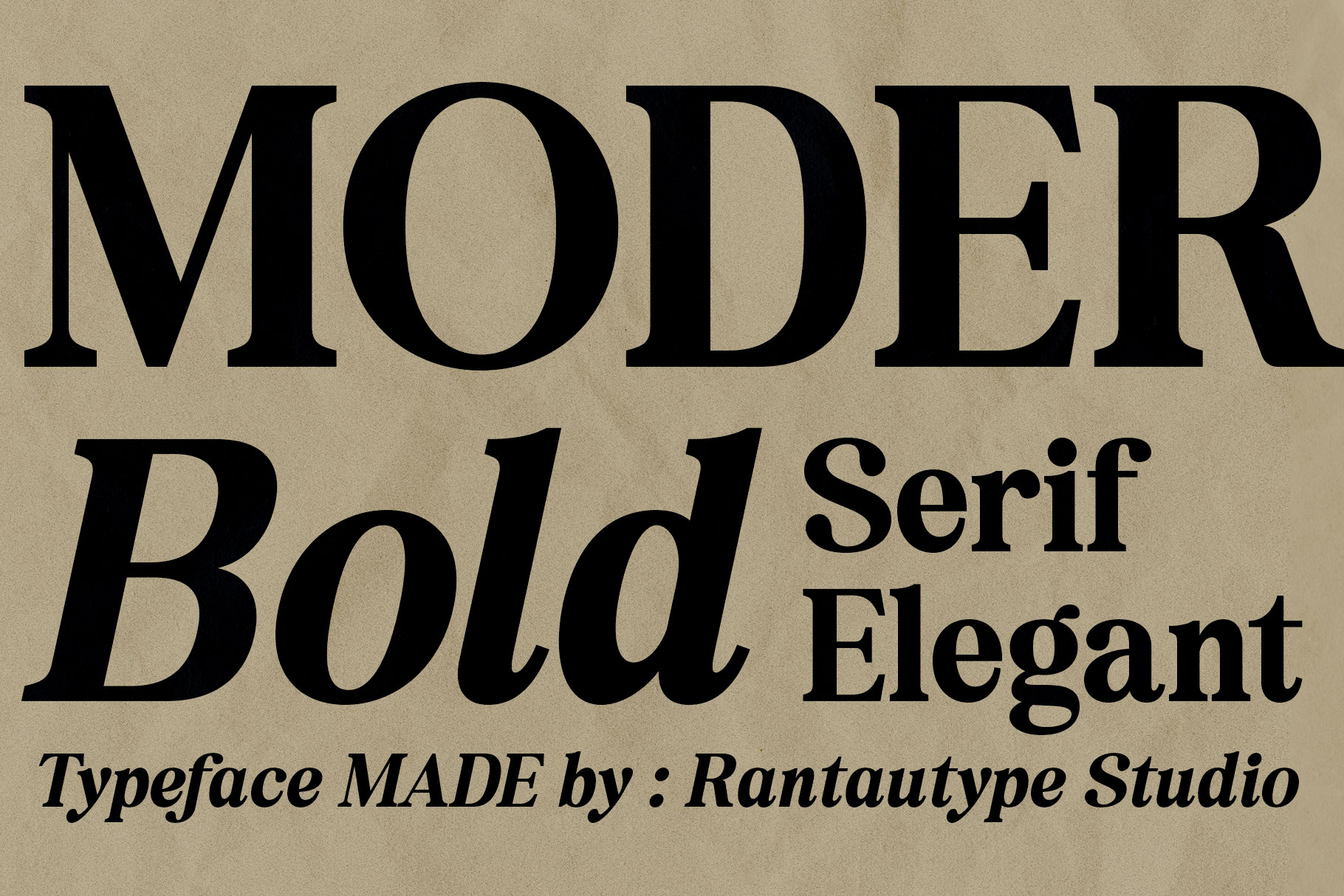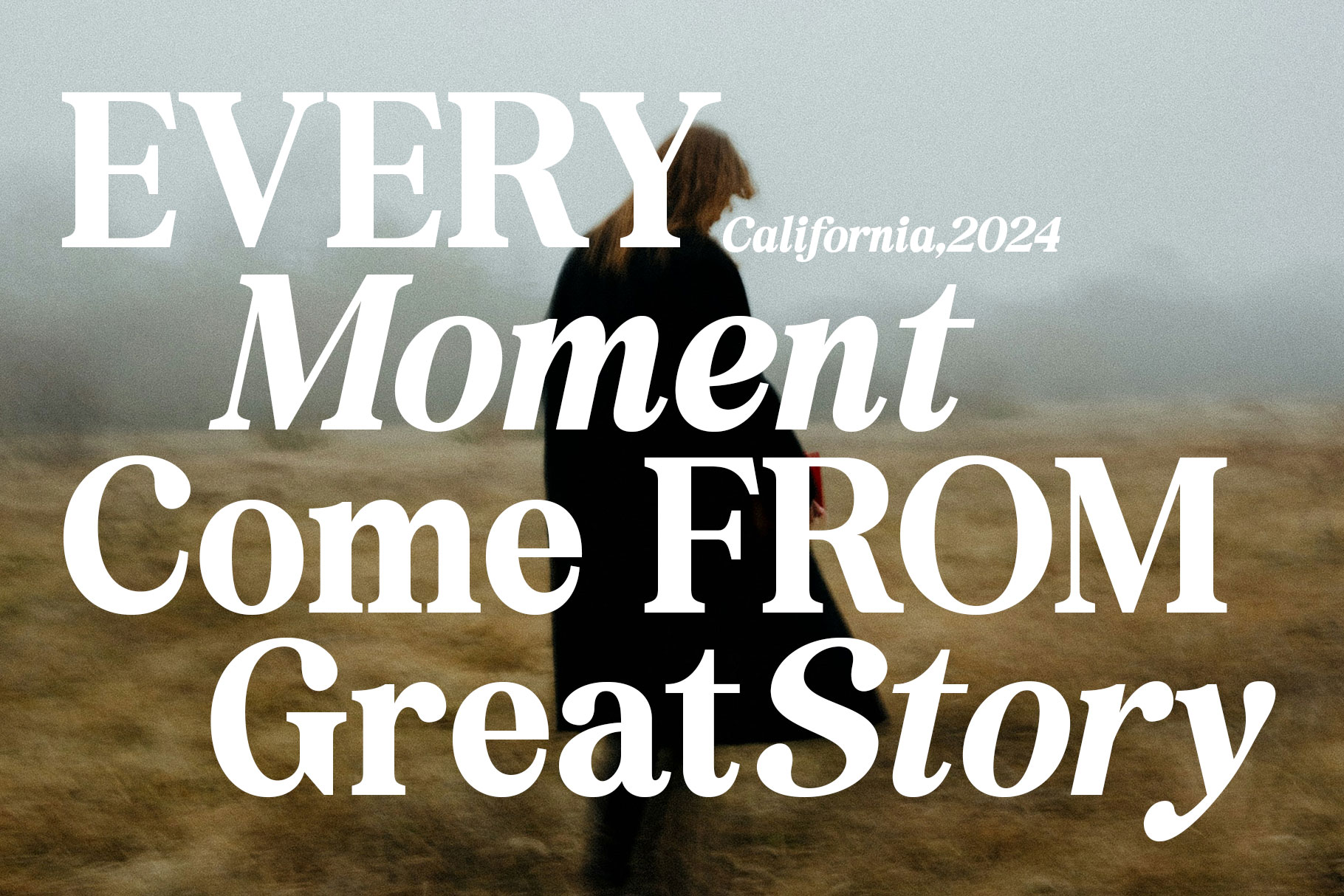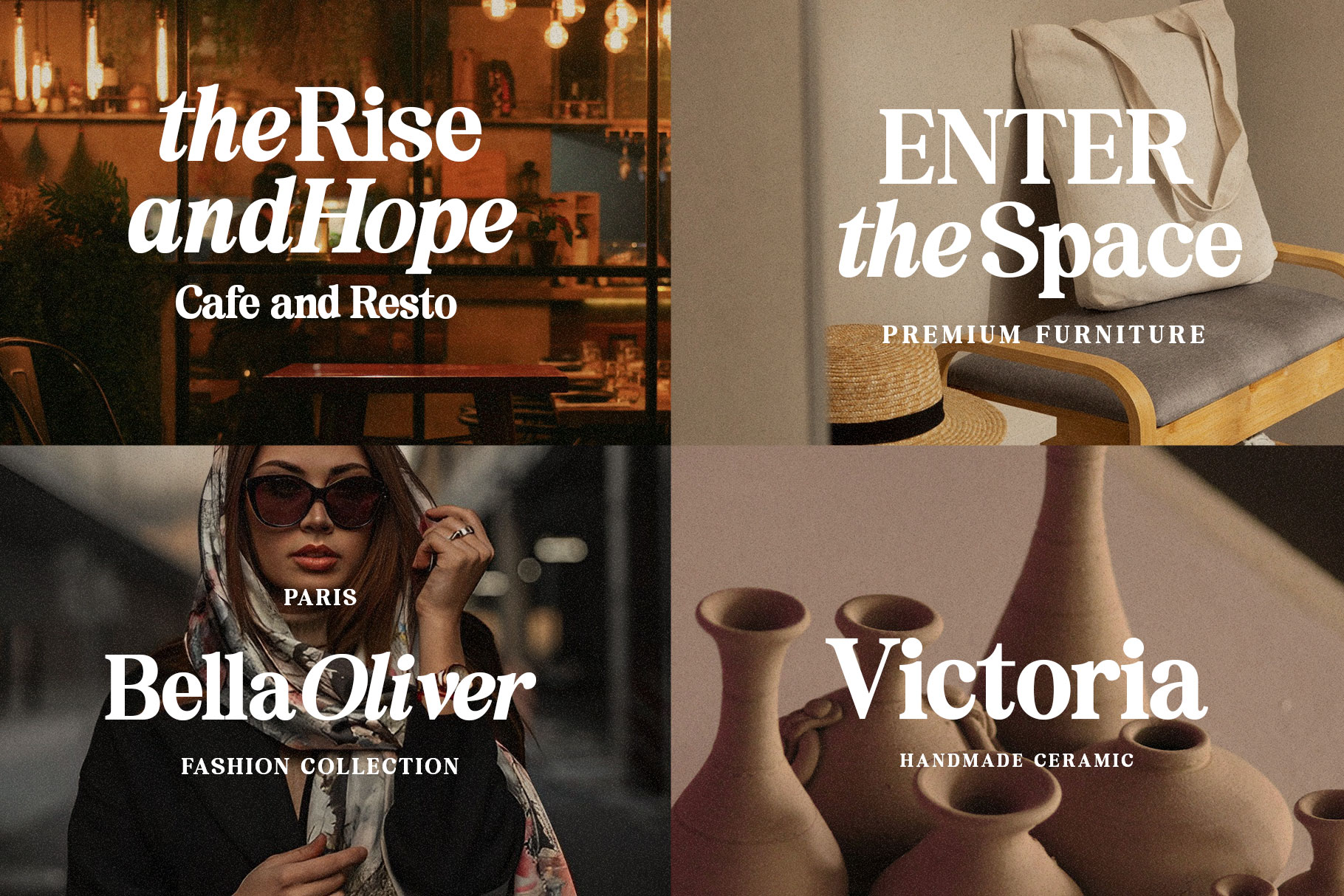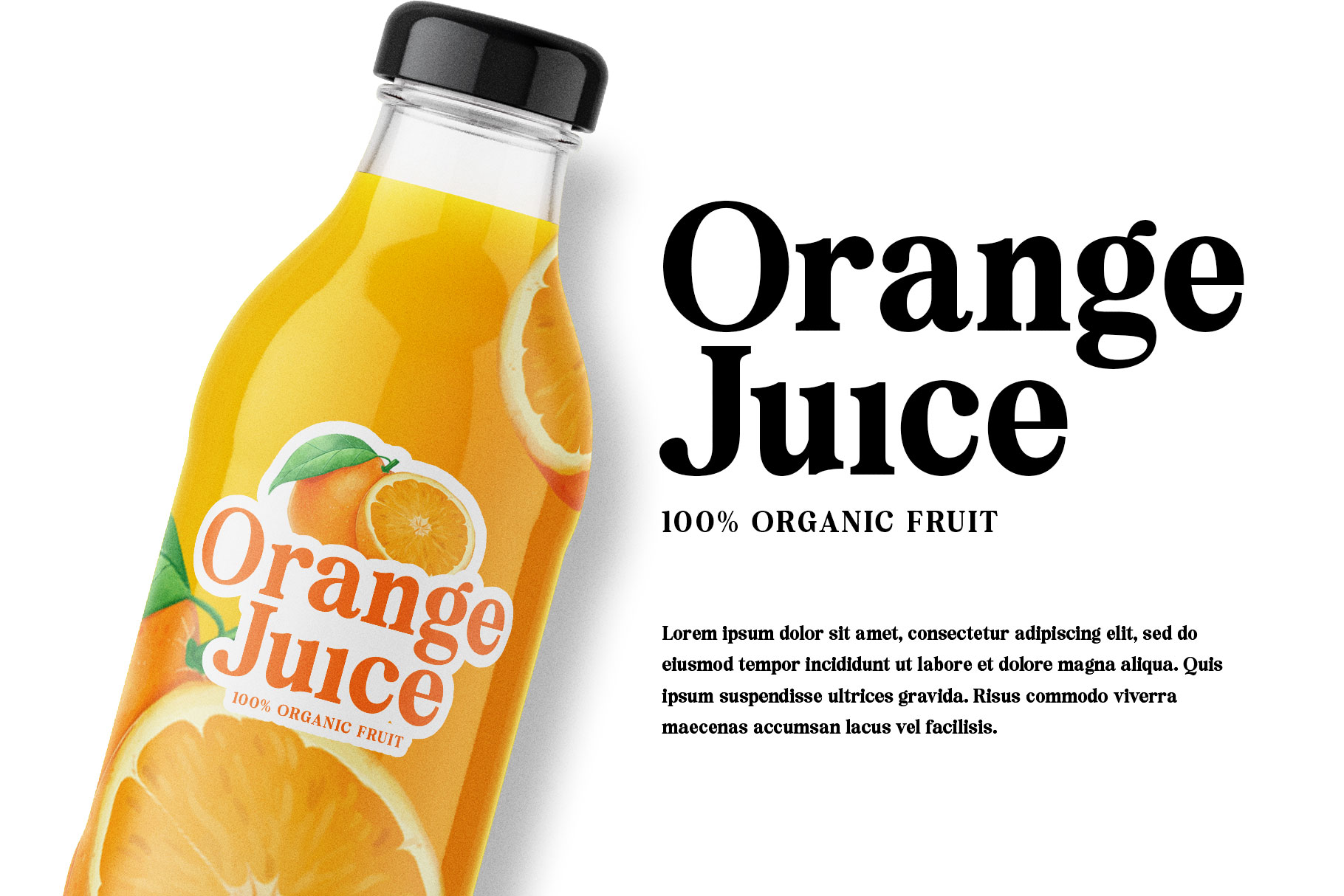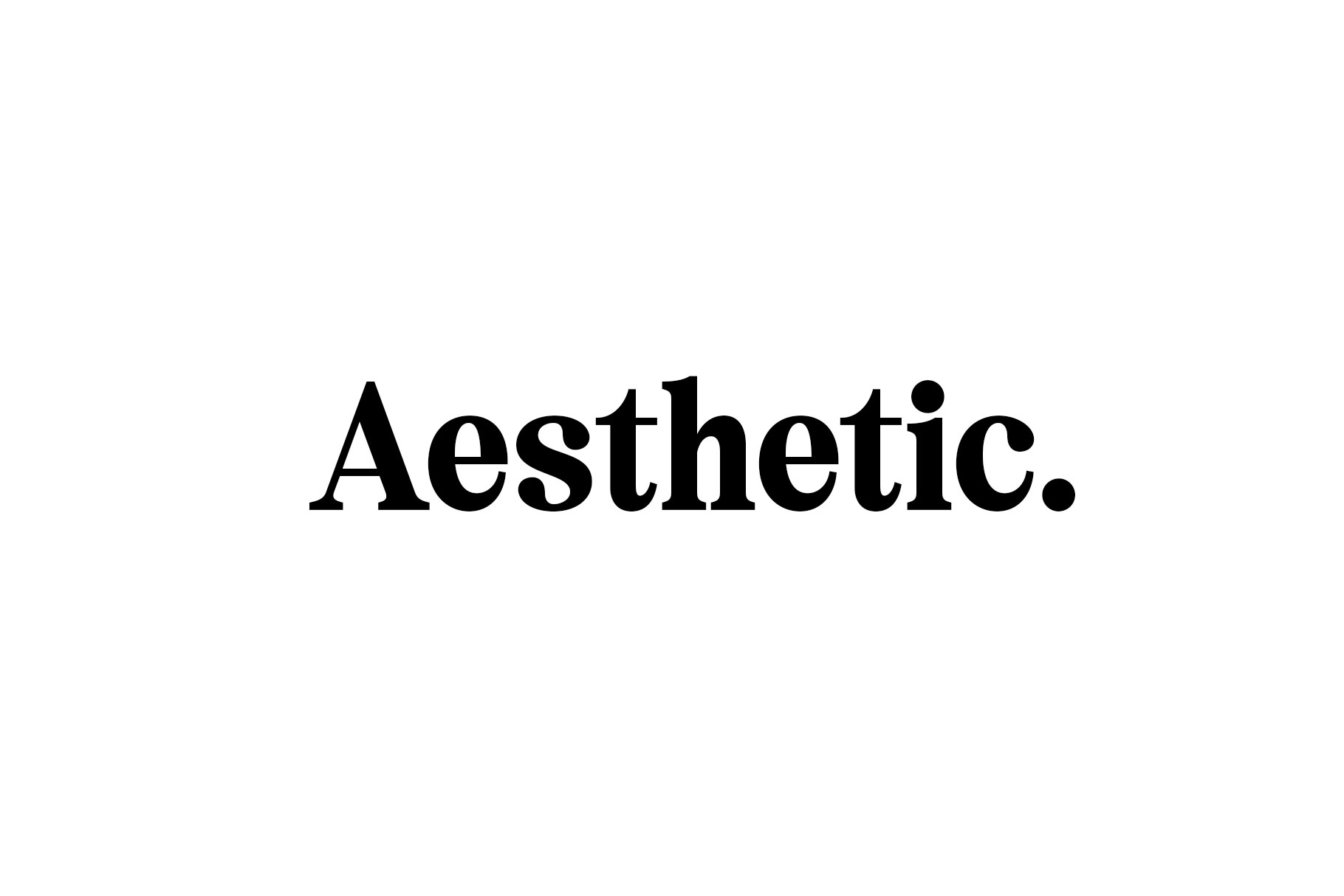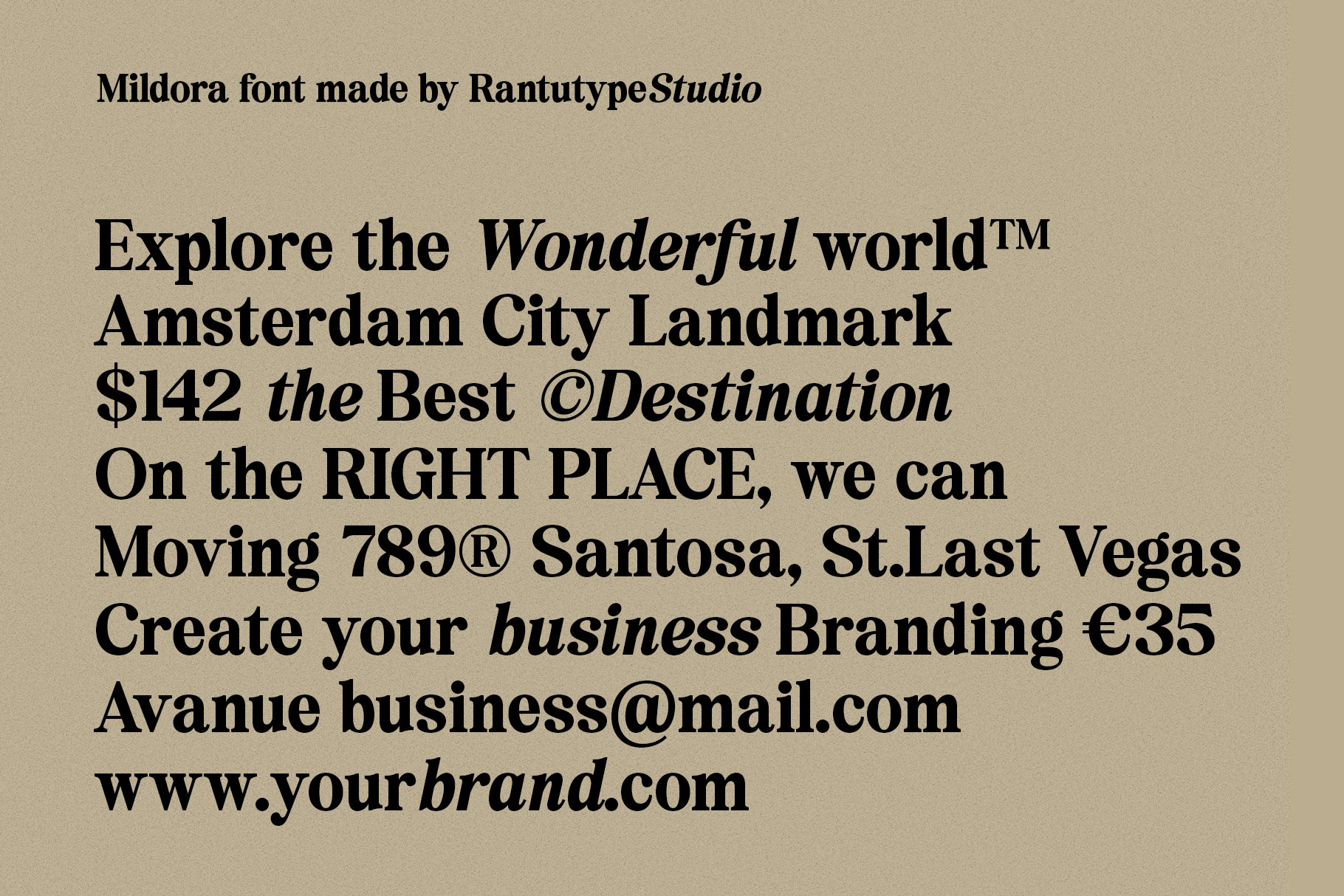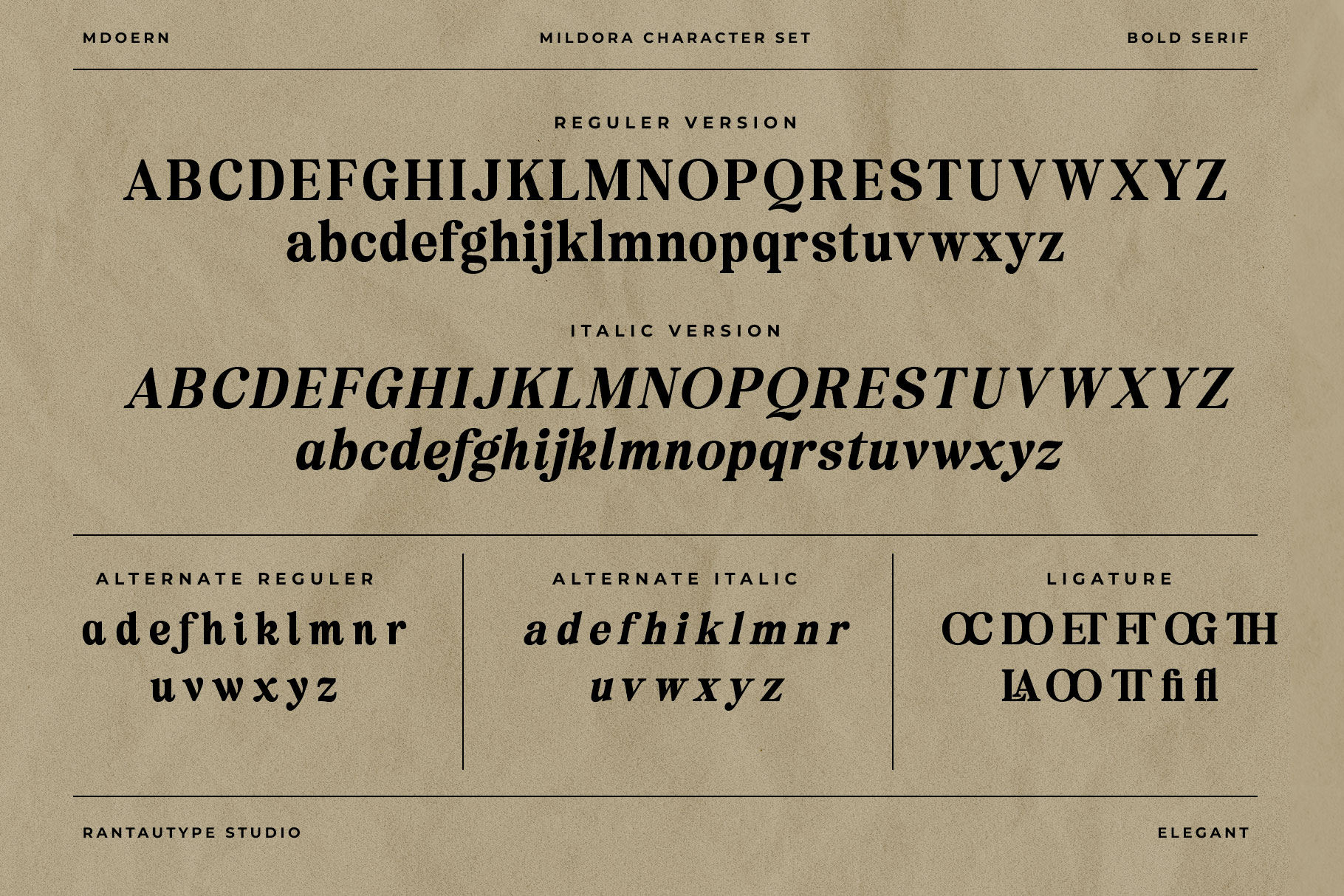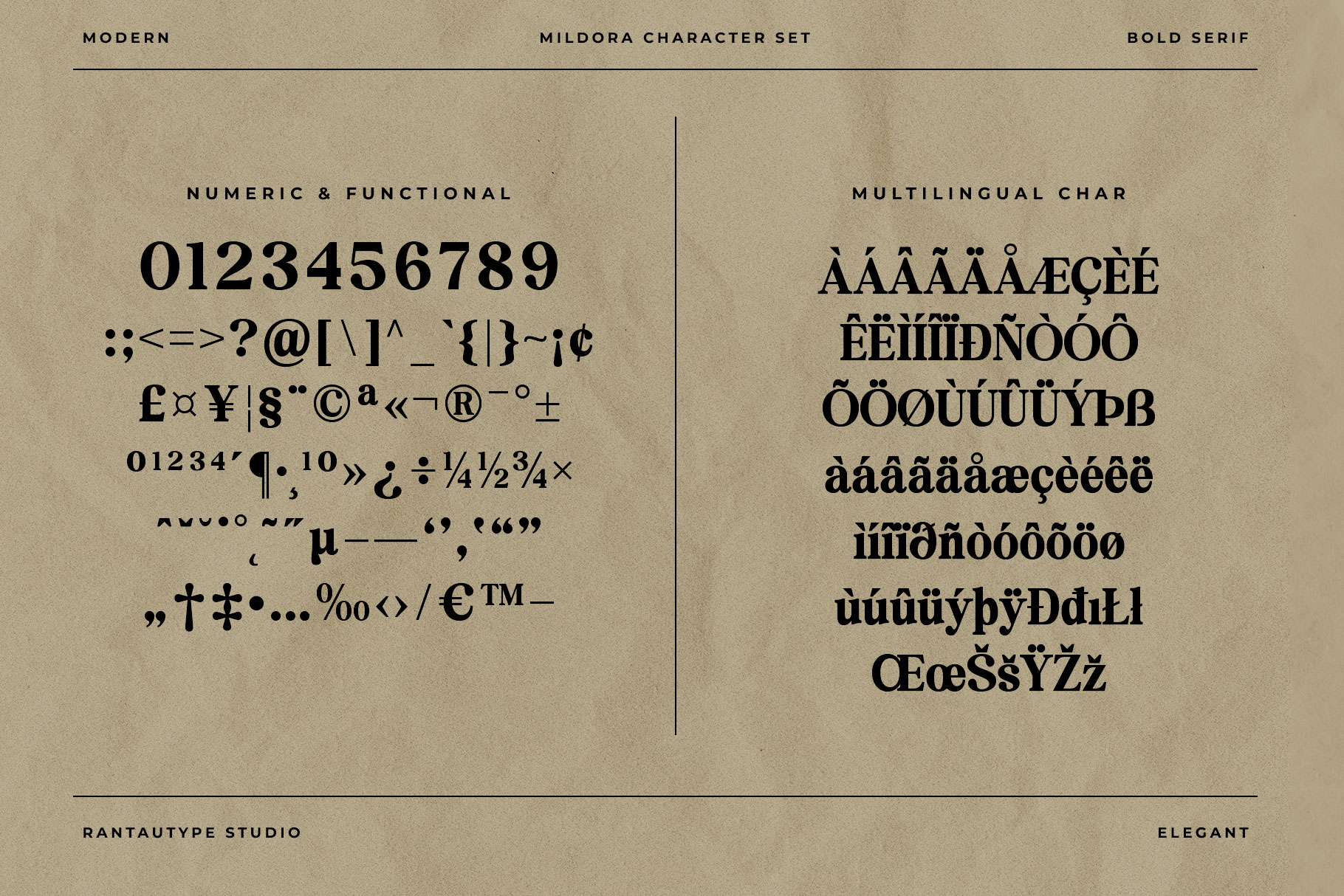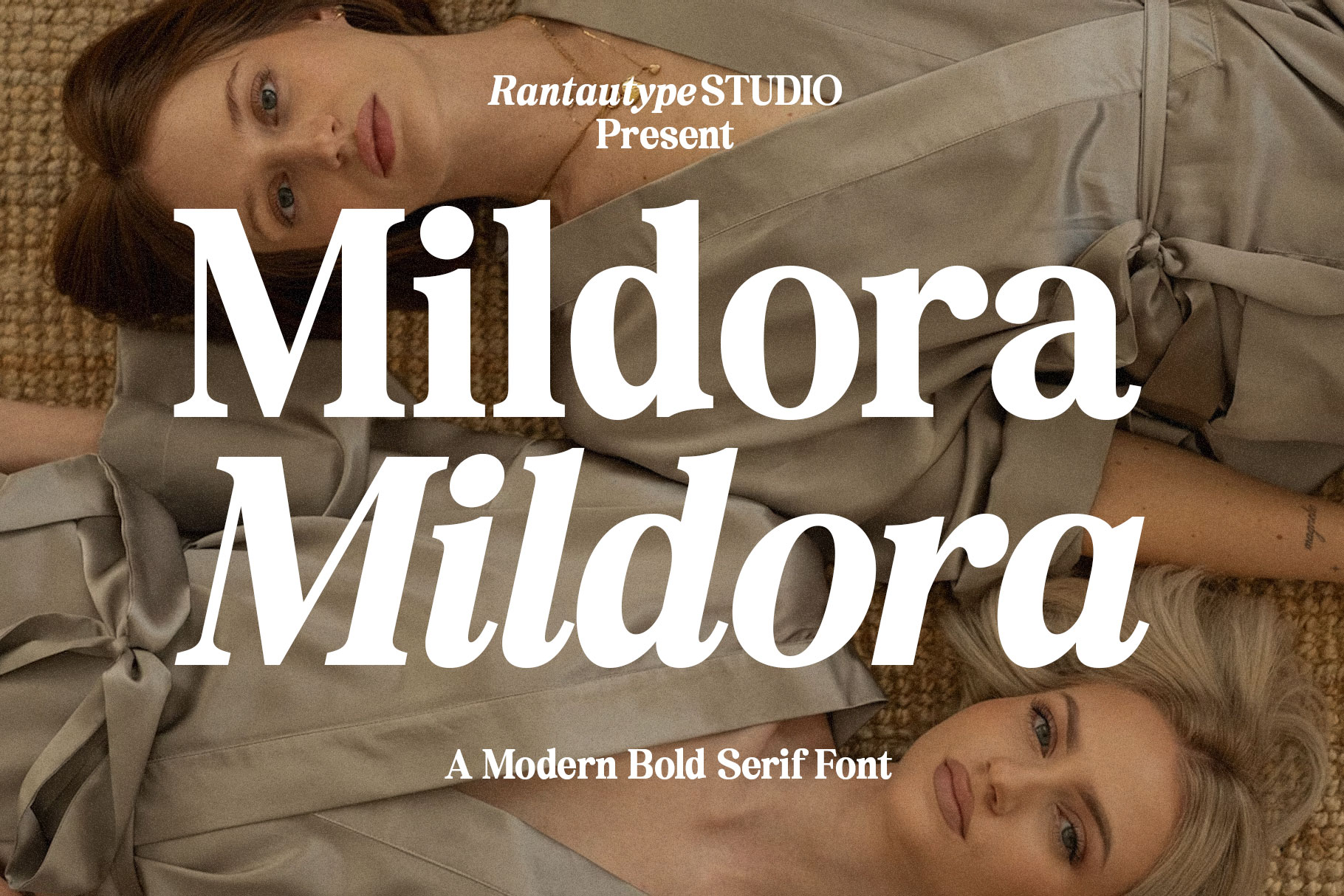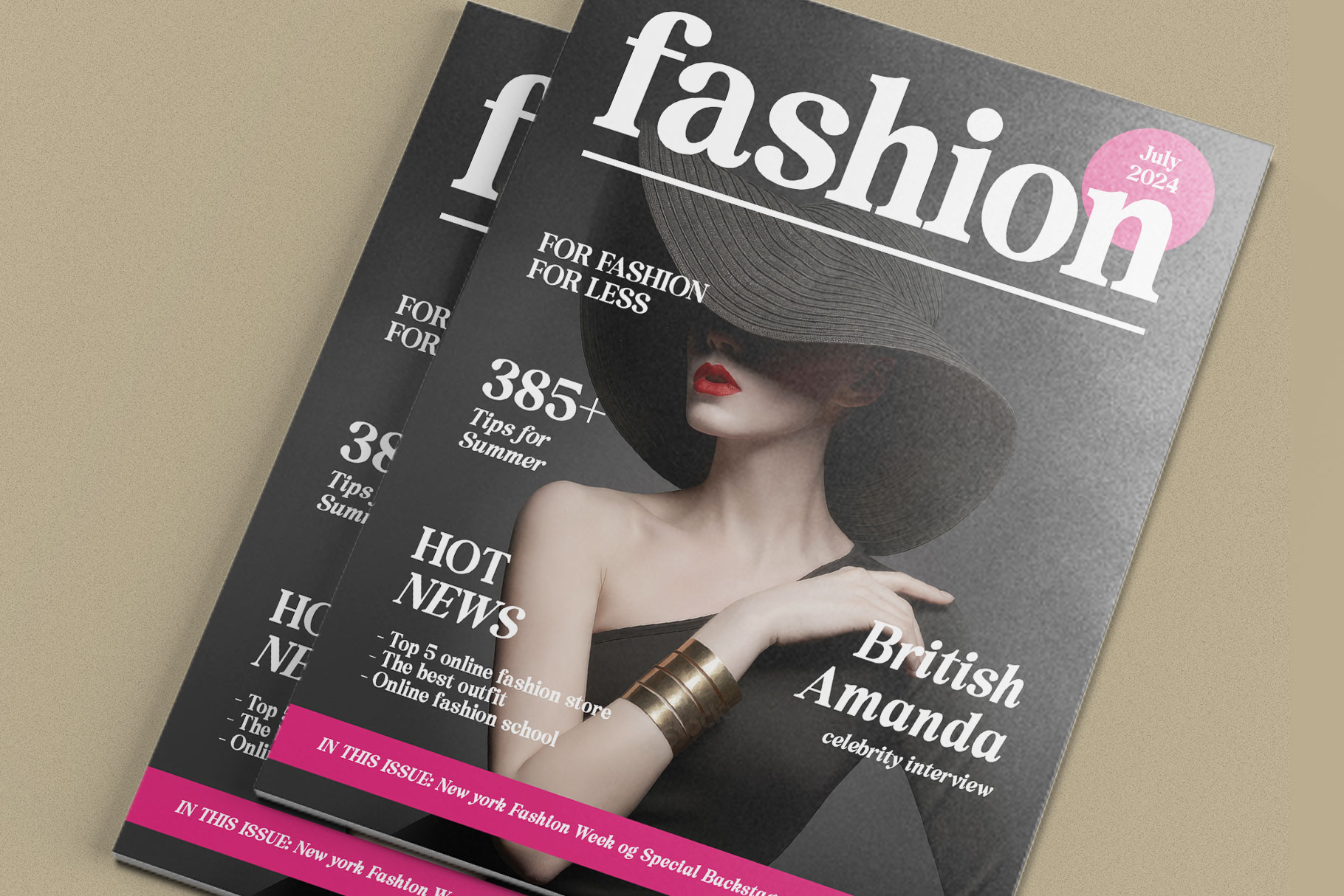
Mildora Modern Bold Serif Font
Mildora is a display typeface with single bold weight. Its inspired by 70’s vibes, both come in two versions one with more contrast and crisper, you can mix and match them to create creative design project.
Mildora is a beautiful choice for any creative endeavor, creating elegant, modern, chic, lifestyle design such as logotype, title, cover, branding, invitations, wedding designs, display and magazine, social media posts, advertisements, printed quotes, product packaging, corporate brand, product designs, labels, photography, watermarks, special events and any other project with nostalgic or elegant touch.